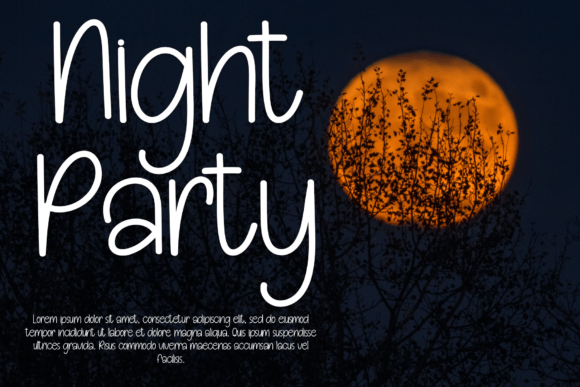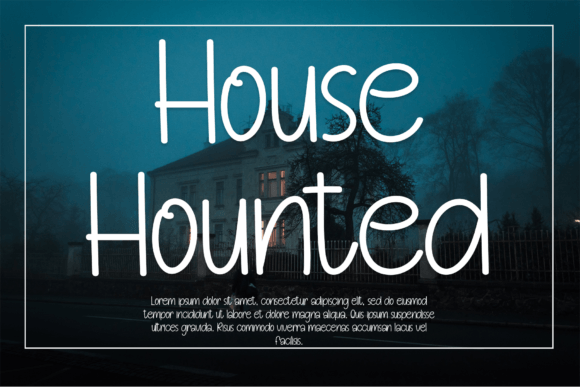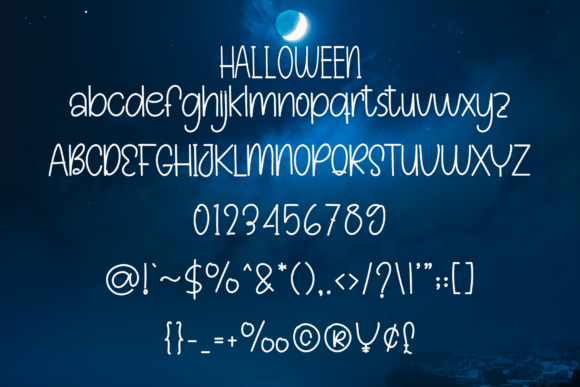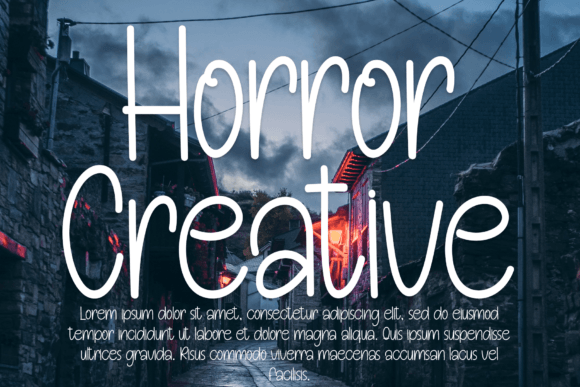
Unleash the Spoirit of Halloween with a Hauntingly Beautiful Font
As the spookiest time of the year approaches, designers and crafters are on the lookout for the perfect font to add a touch of eerie elegance to their Halloween-themed projects. Look no further than the Halloween Font, a stylish handwritten font that exudes a contemporary atmosphere and impeccable form. Inspired by timeless classic calligraphy, this font is sure to cast a spell on your audience.
A Font that Embodies the Spirit of Halloween
The Halloween Font is a masterfully crafted typeface that embodies the essence of the spookiest season. With its balanced and varied design, this font is perfect for adding a touch of sophistication to your Halloween-themed projects. Whether you’re designing invitations, decorations, or digital content, the Halloween Font is sure to make your creations stand out from the crowd.
One of the standout features of the Halloween Font is its PUA (Private Use Area) encoding. This means that you can access all of the amazing glyphs and ligatures with ease, giving you unparalleled creative freedom. With the Halloween Font, you can add intricate details and flourishes to your designs, taking them to the next level.
Contemporary yet Classic
The Halloween Font strikes the perfect balance between contemporary style and classic elegance. Its handwritten design gives it a personal and approachable feel, while its impeccable form ensures that it remains legible and sophisticated. This font is perfect for designers and crafters who want to create Halloween-themed projects that are both modern and timeless.
The Halloween Font is incredibly versatile, making it perfect for a wide range of projects. Here are just a few ideas to get you started:
- Halloween invitations and party decorations
- Digital content, such as social media graphics and blog posts
- Crafting projects, such as handmade cards and gift tags
- Signage and display graphics for haunted houses and Halloween events
Tips for Using the Halloween Font
To get the most out of the Halloween Font, here are a few tips to keep in mind:
- Experiment with different font sizes and colors to create a unique look
- Use the font’s glyphs and ligatures to add intricate details to your designs
- Pair the Halloween Font with other fonts to create a striking contrast
- Don’t be afraid to get creative and try out new and unusual design ideas
The Halloween Font is a truly exceptional typeface that is sure to add a touch of magic to your Halloween-themed projects. With its stylish handwritten design, impeccable form, and PUA encoding, this font is perfect for designers and crafters who want to create hauntingly beautiful creations. So why wait? Download the Halloween Font today and unleash the spirit of Halloween in your designs!
Key Features of the Halloween Font
- Stylish handwritten font with a contemporary atmosphere and impeccable form
- Inspired by timeless classic calligraphy
- Balanced and varied design
- Perfect for a wide range of Halloween-themed projects